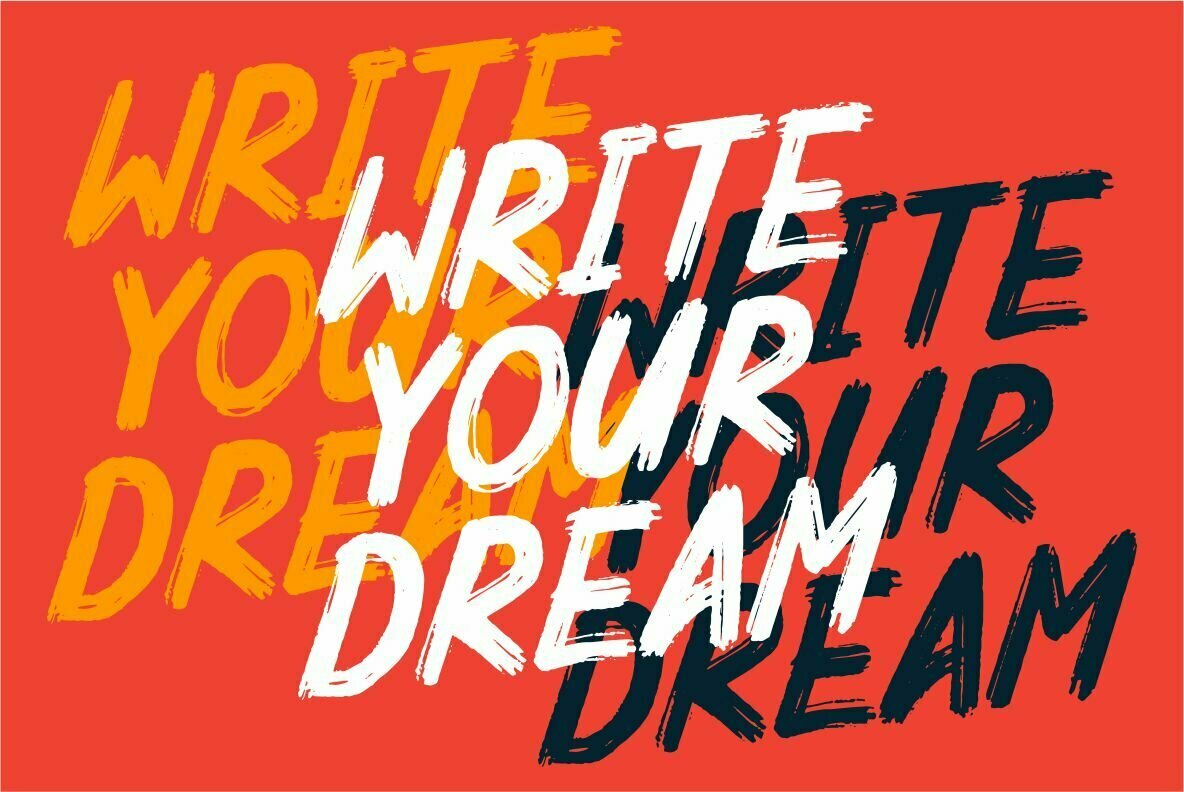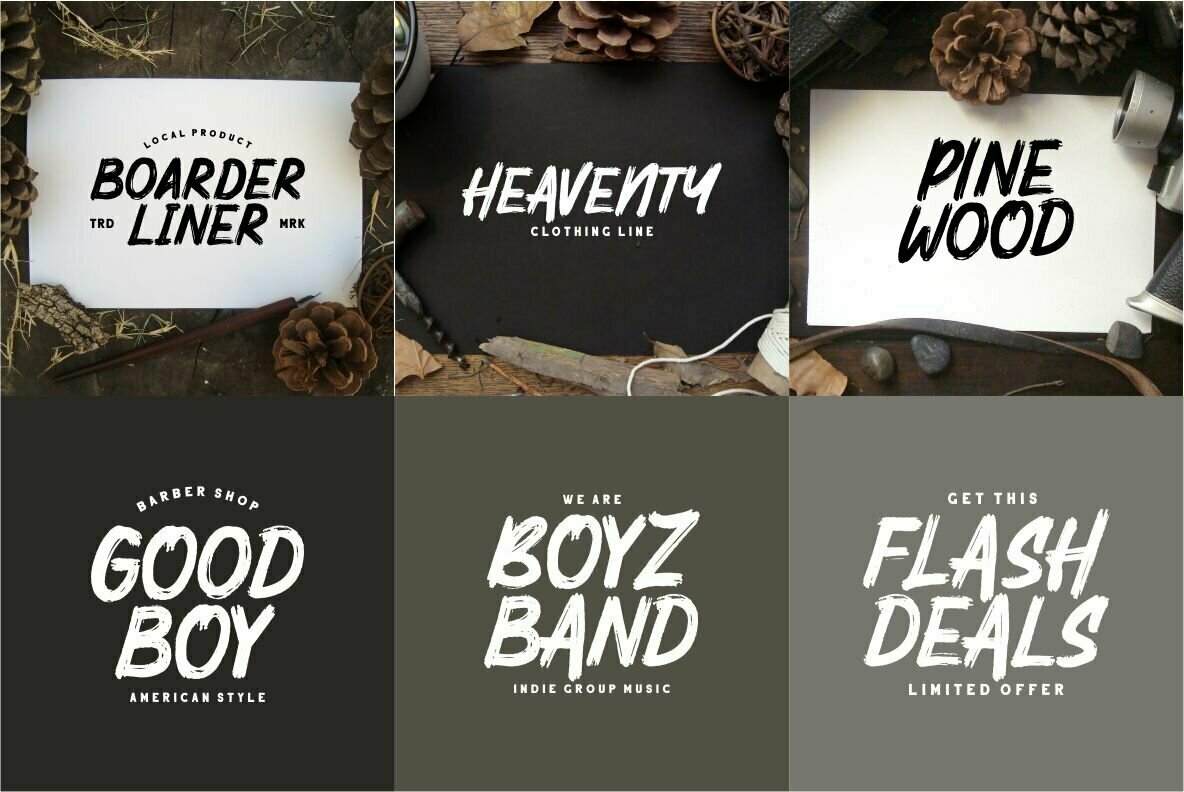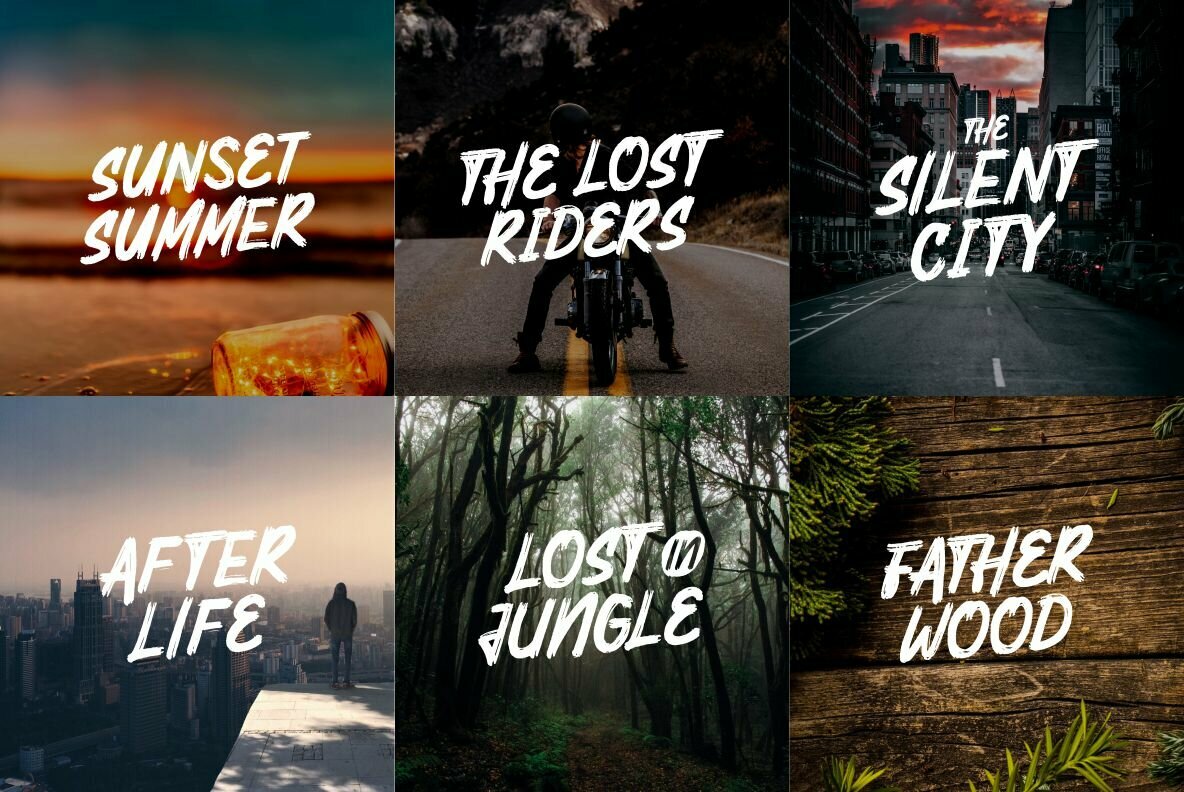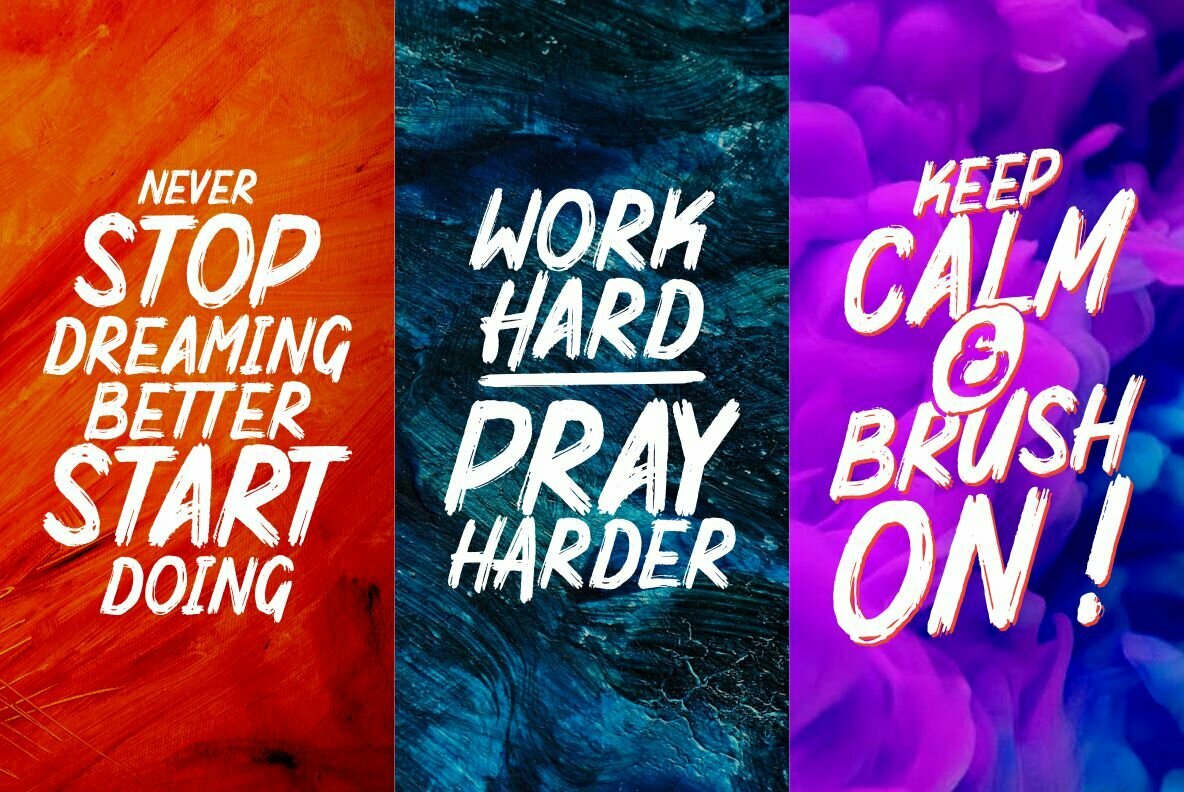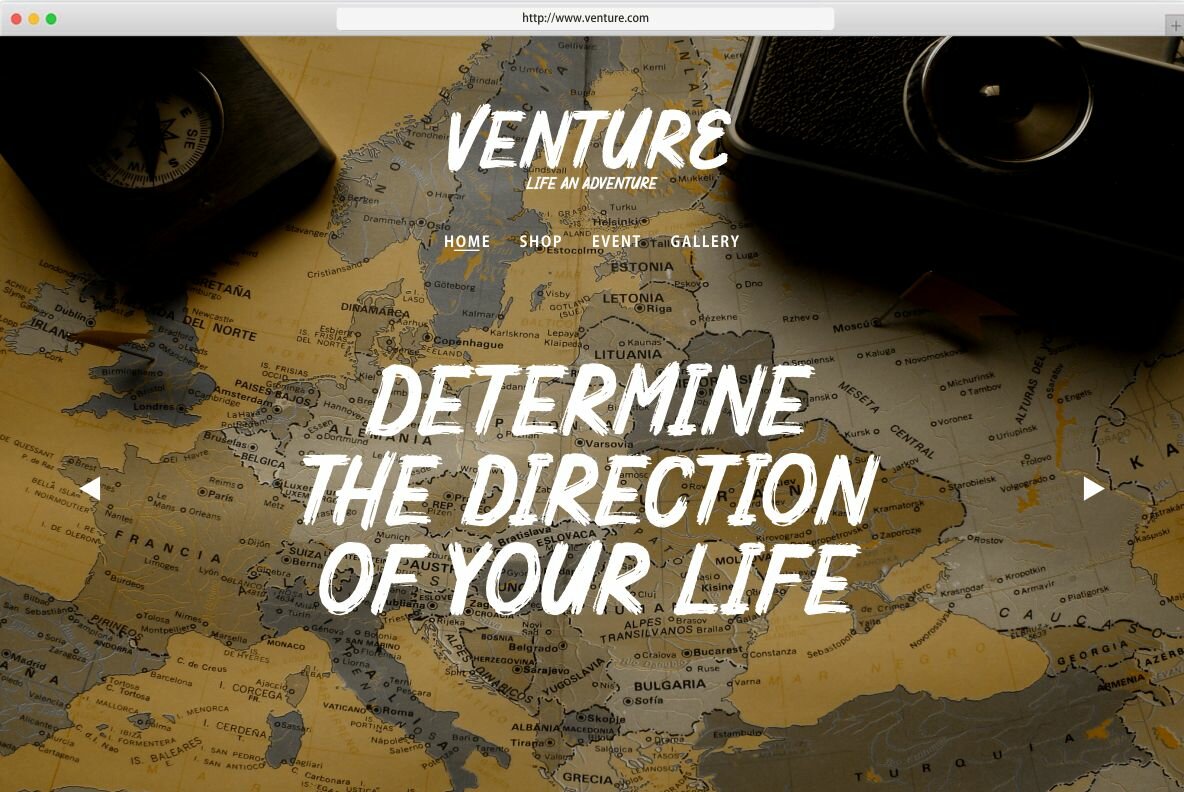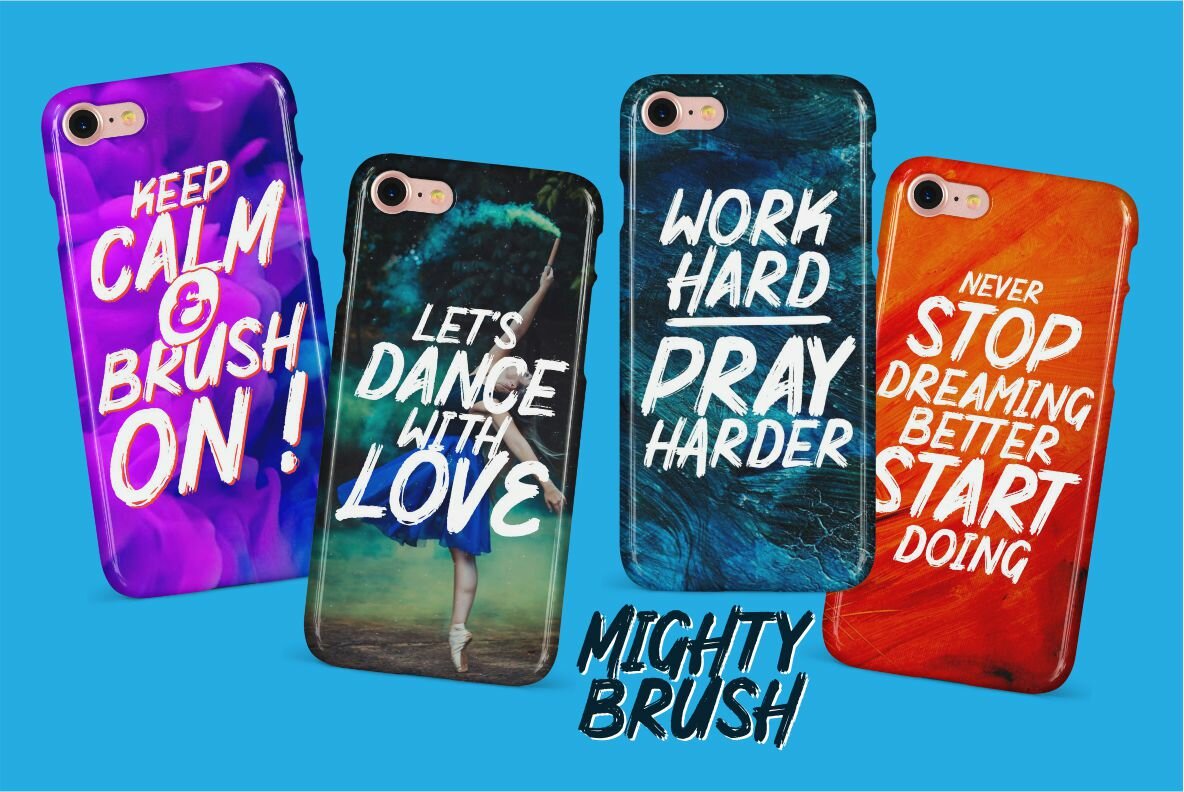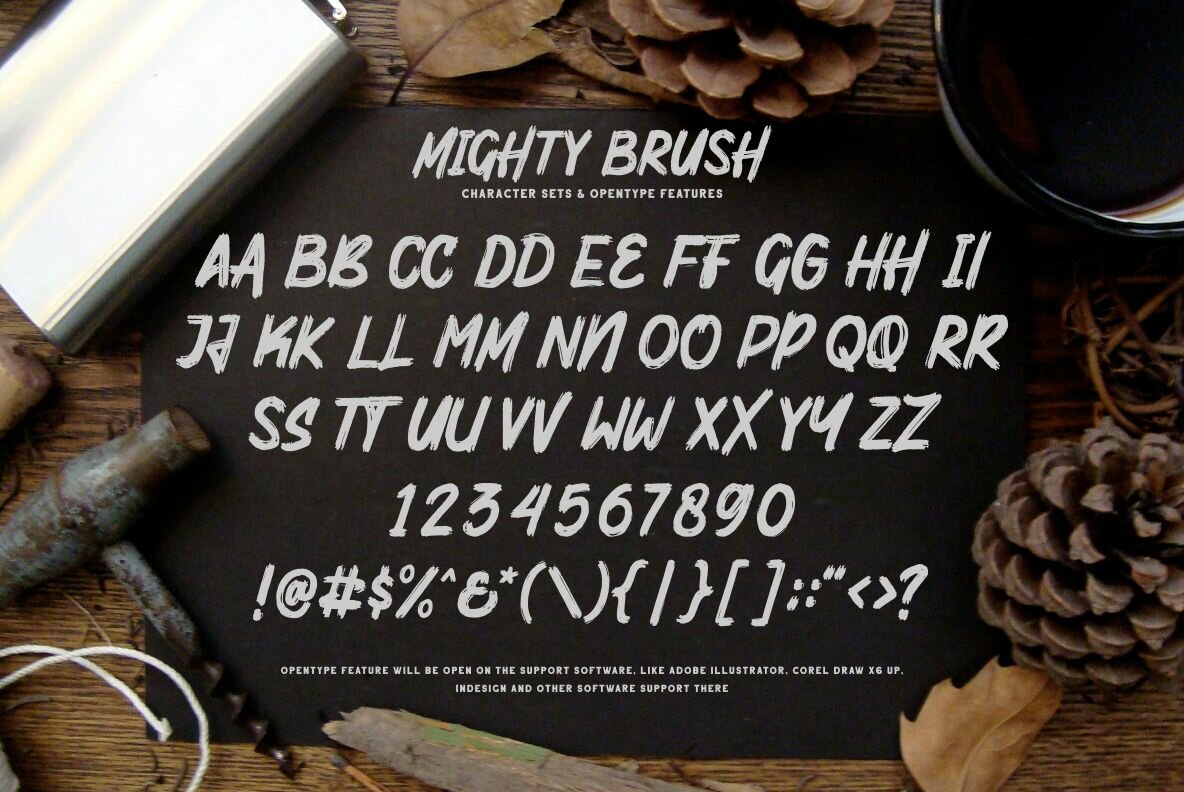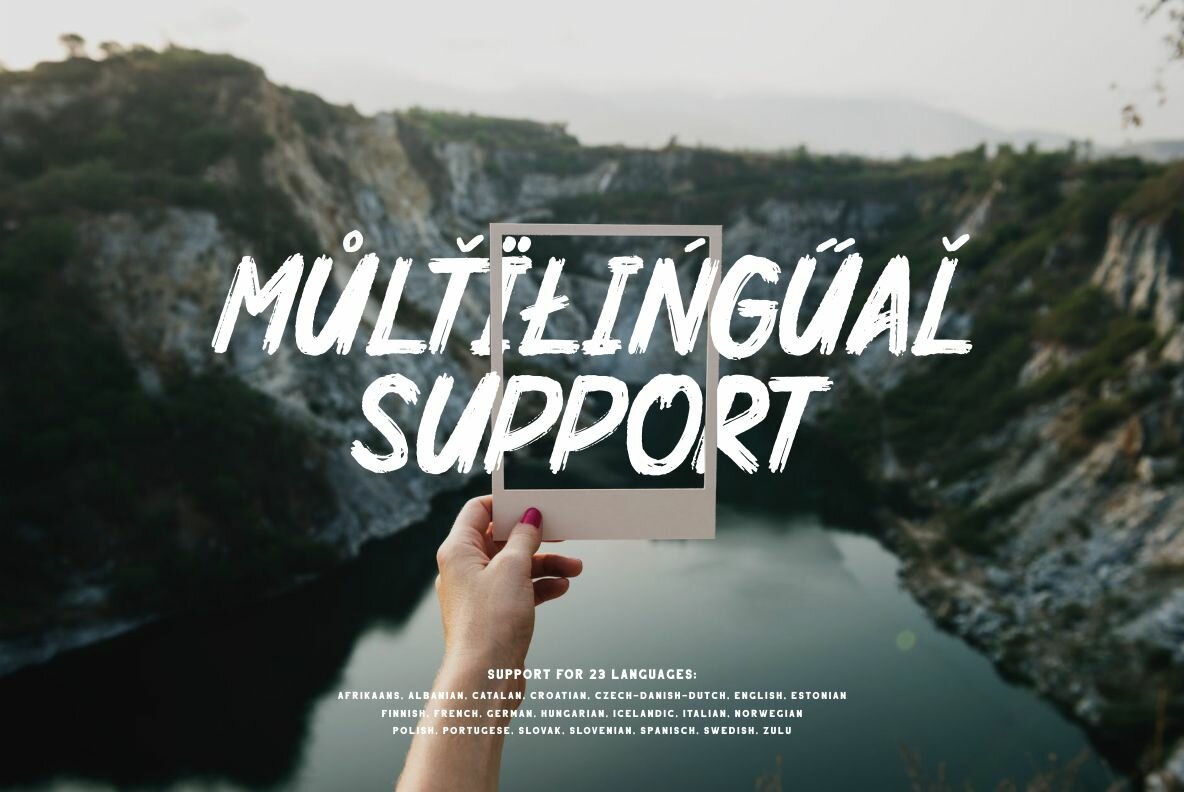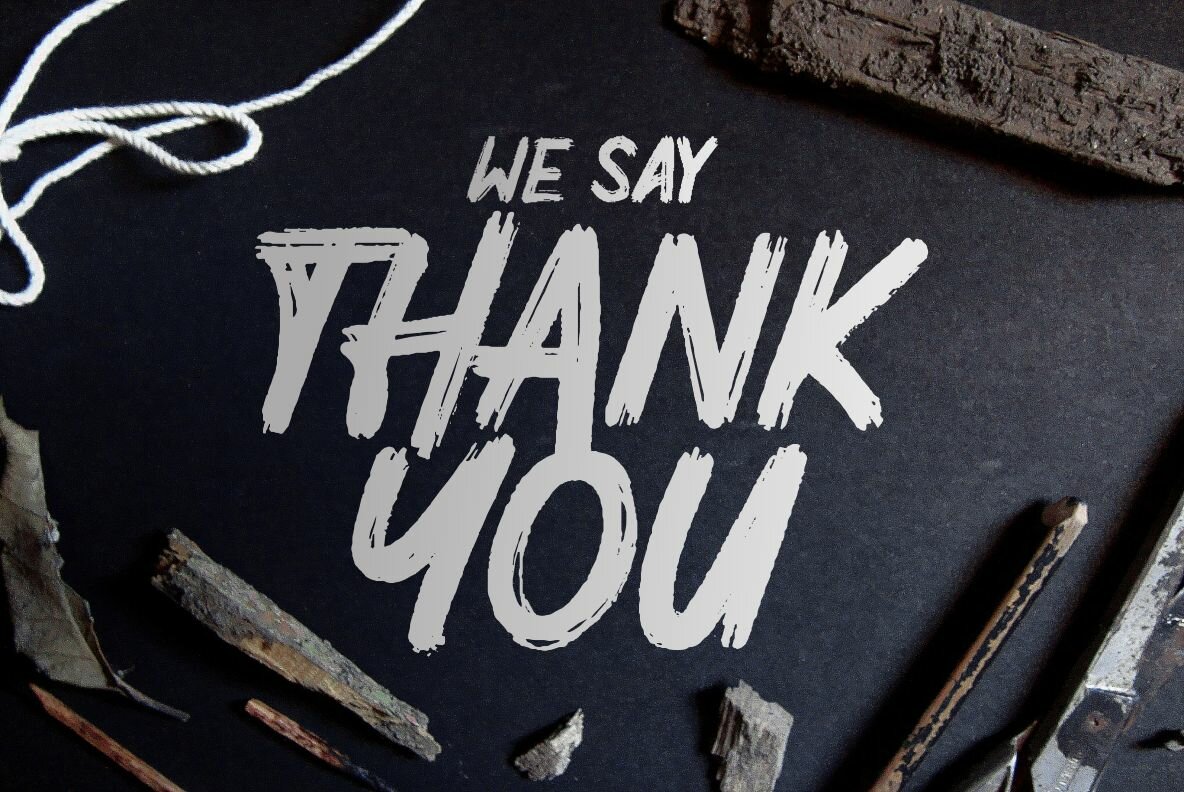
Mighty Brush Font
Mighty Brush
MIGHTY BRUSH FONT combines attractive curves with a fresh urban edge; delivering a stylish script which is guaranteed to add an eye-catching appeal to your logo designs, brand imagery, handwritten quotes, product packaging, merchandise, social media post, or website font.